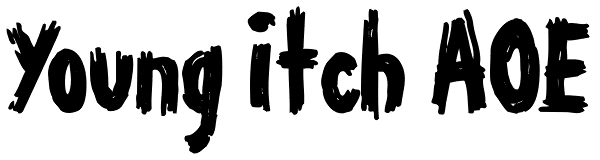
Young Itch AOE
Ok, so many of you are now probably wondering if I am a teenager. Nope. But I was once, and I had alot of pent up angst like alot of other teens, and maybe this typeface is my outlet for what is left of those teenage days of mine. Take it as you...